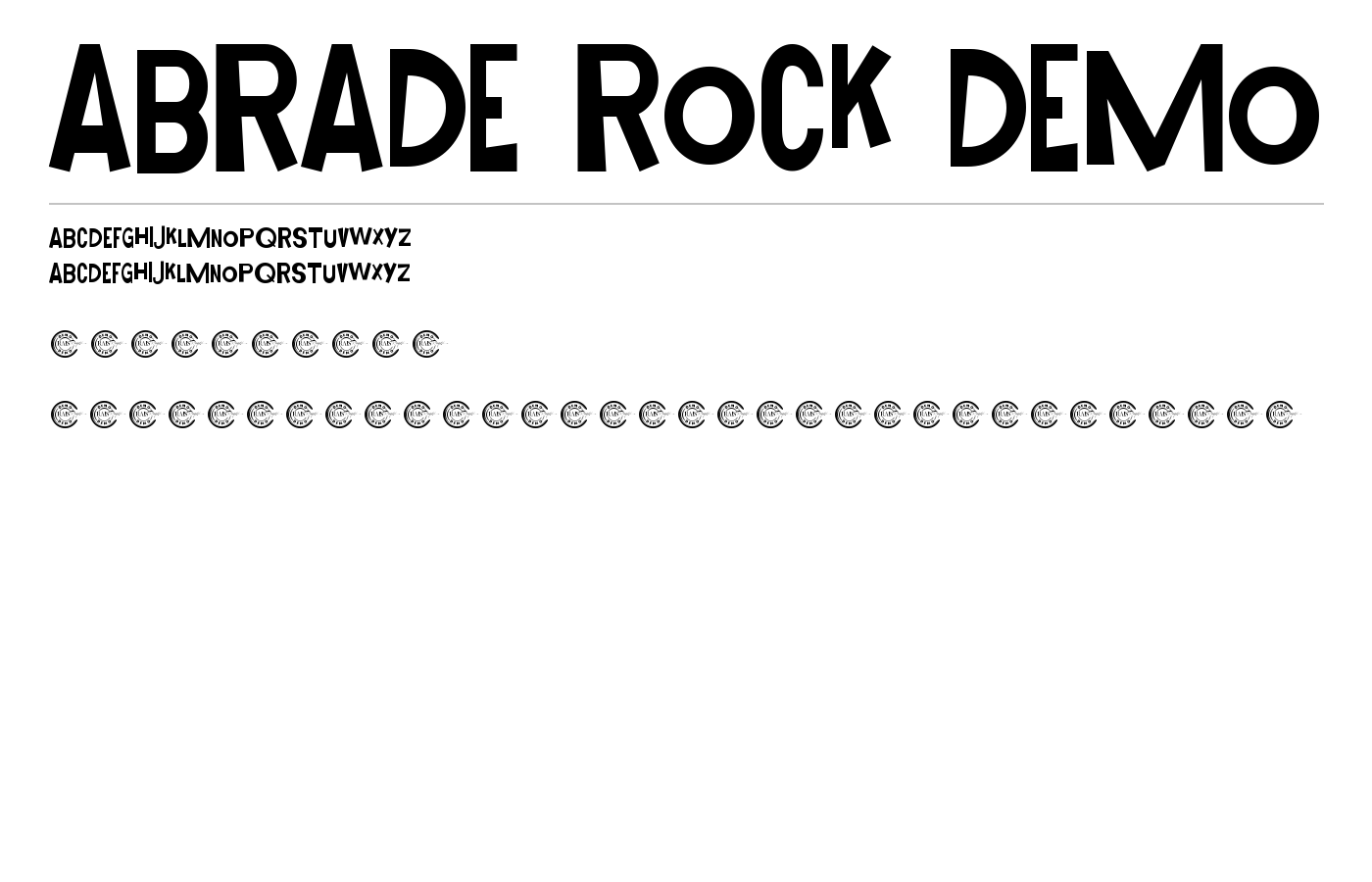
Abrade Rock Demo is a bold, playful sans serif font with an irregular, hand-crafted feel characterized by uneven stroke widths and quirky letter shapes. Its tall, condensed letters and high contrast between thick and thin strokes give it a dynamic, energetic personality, making it ideal for eye-catching headlines, posters, and creative branding. This font works best where a bold, informal, and fun vibe is desired, adding character and uniqueness to designs.
Abrade Rock Demo Font
About Abrade Rock Demo Font
| Font family | Abrade Rock Demo Font |
| Designer | Shalsha & Suci Anita |